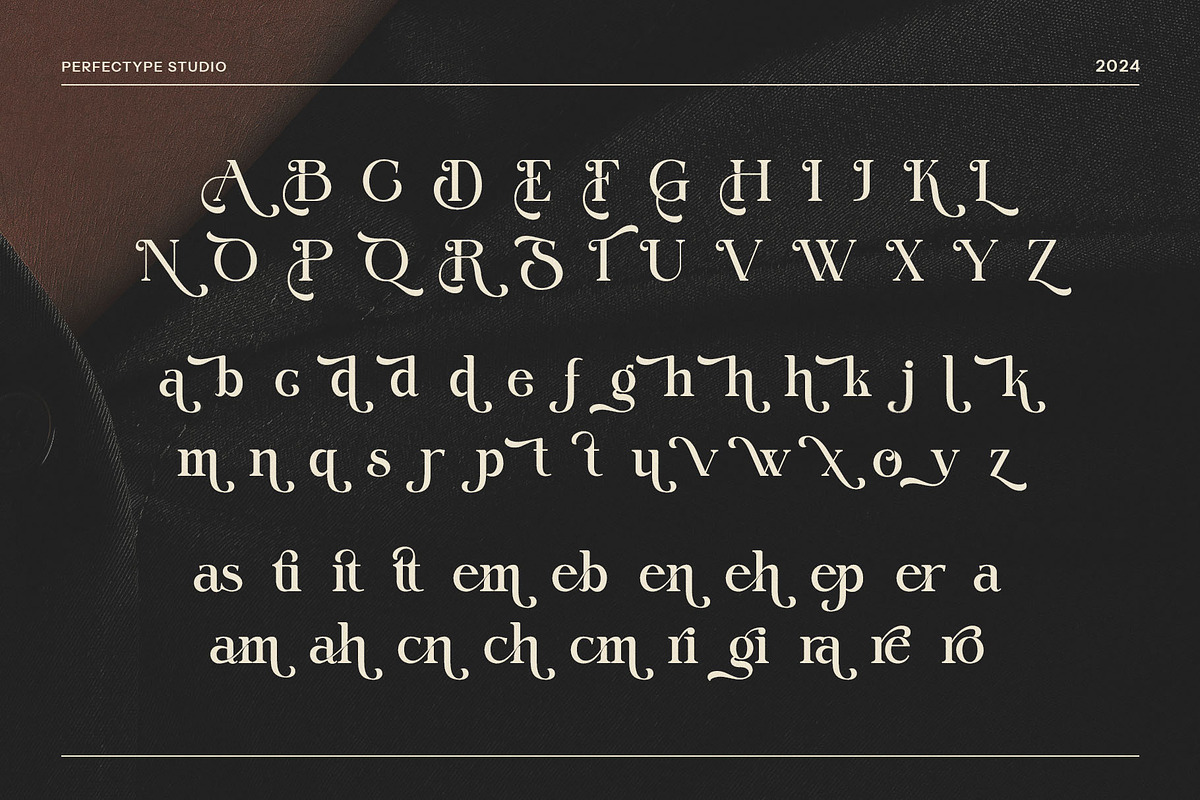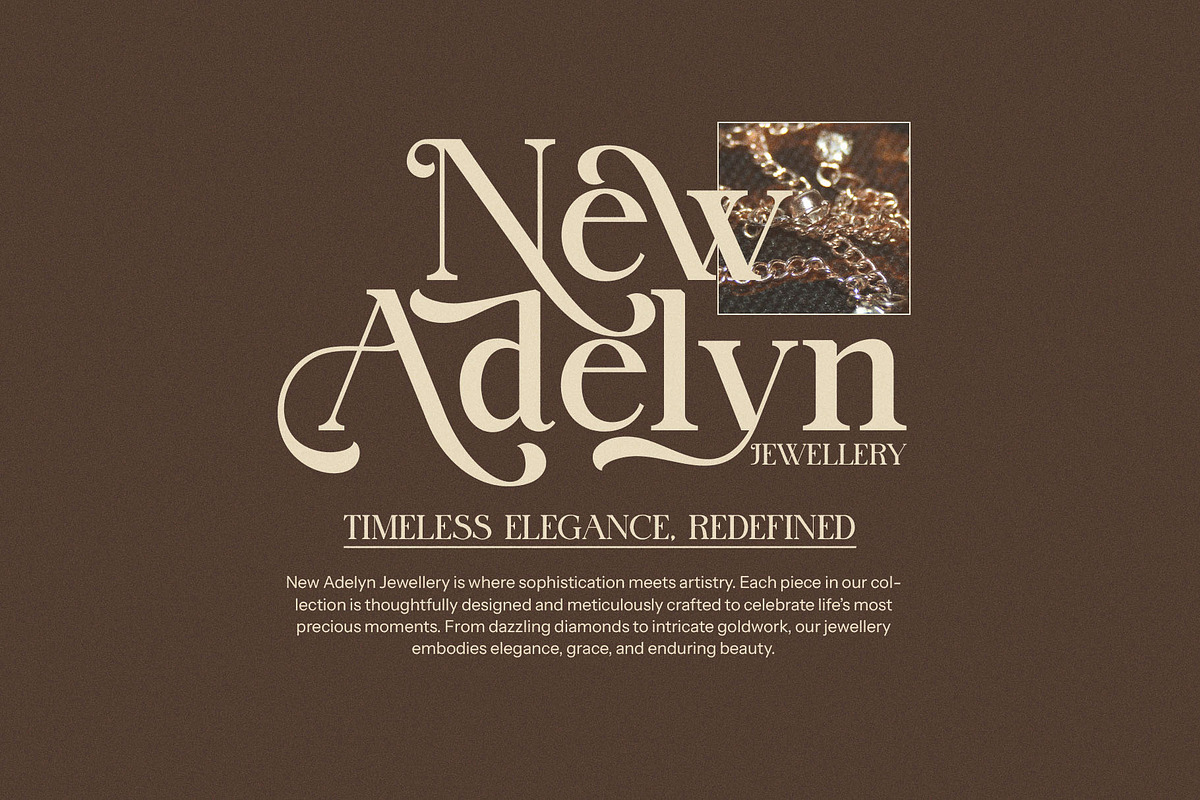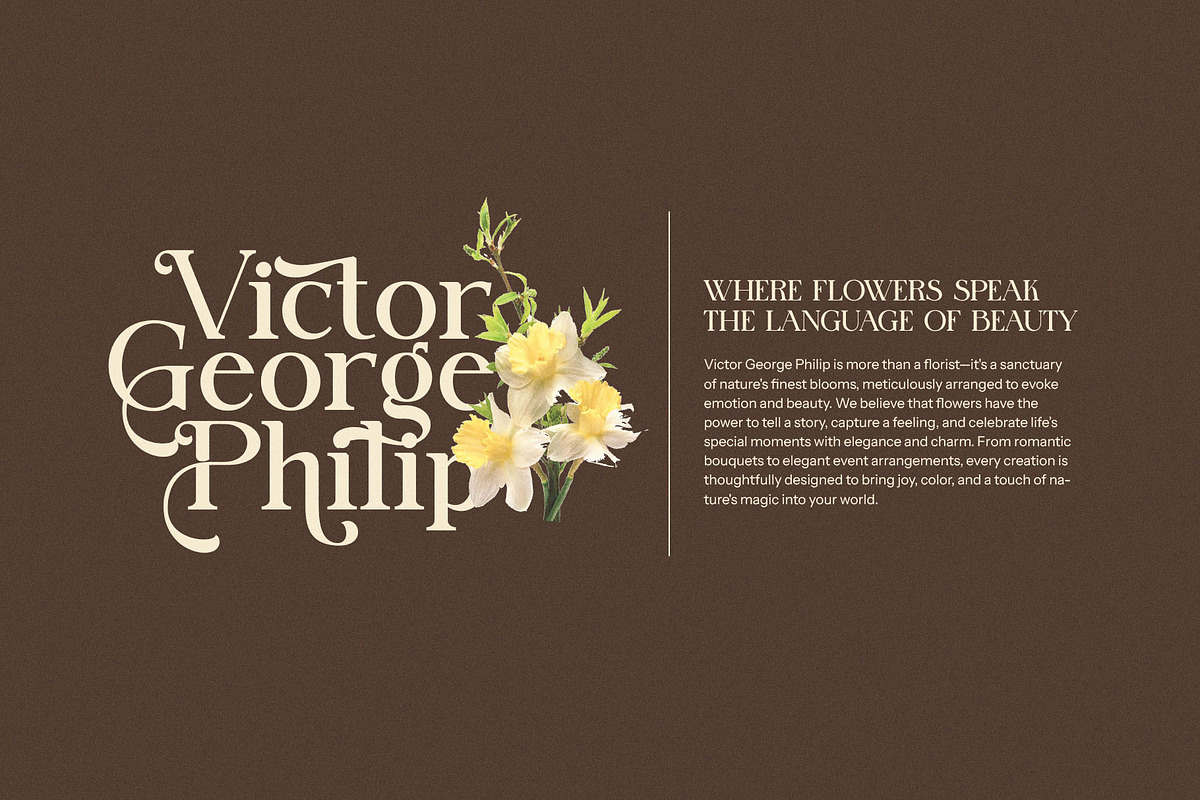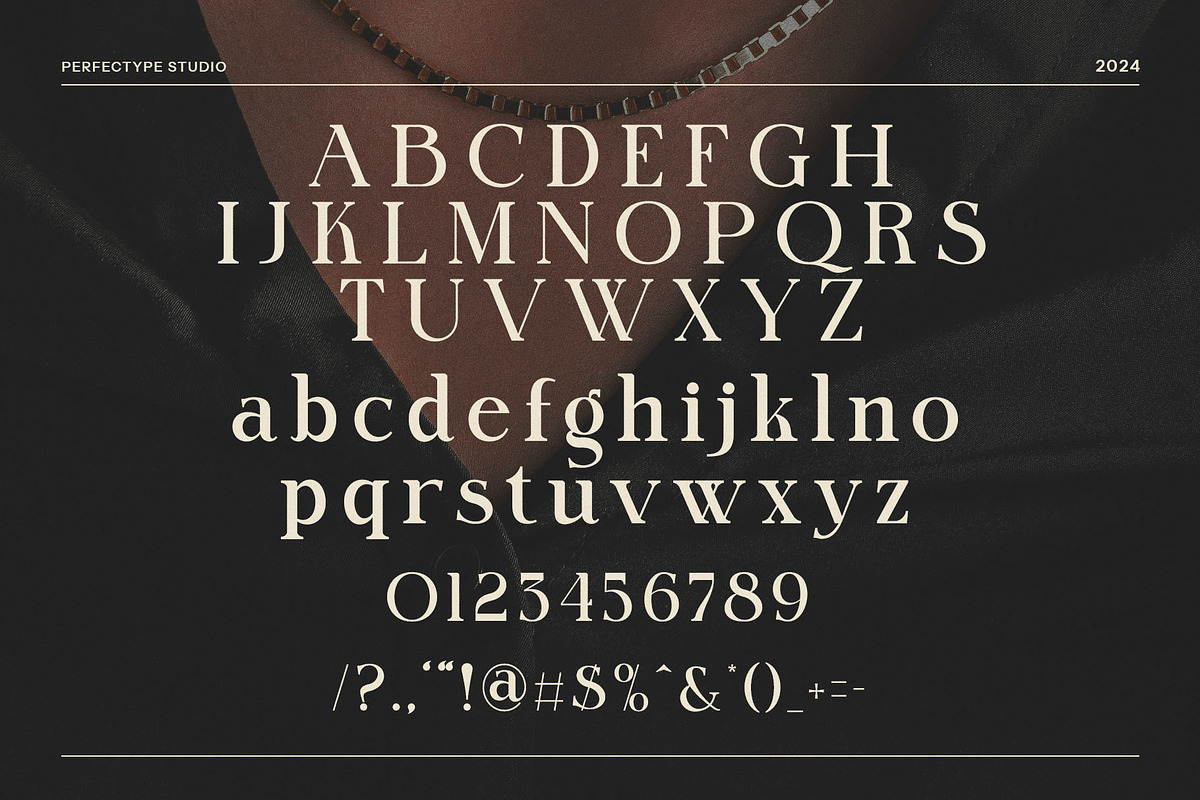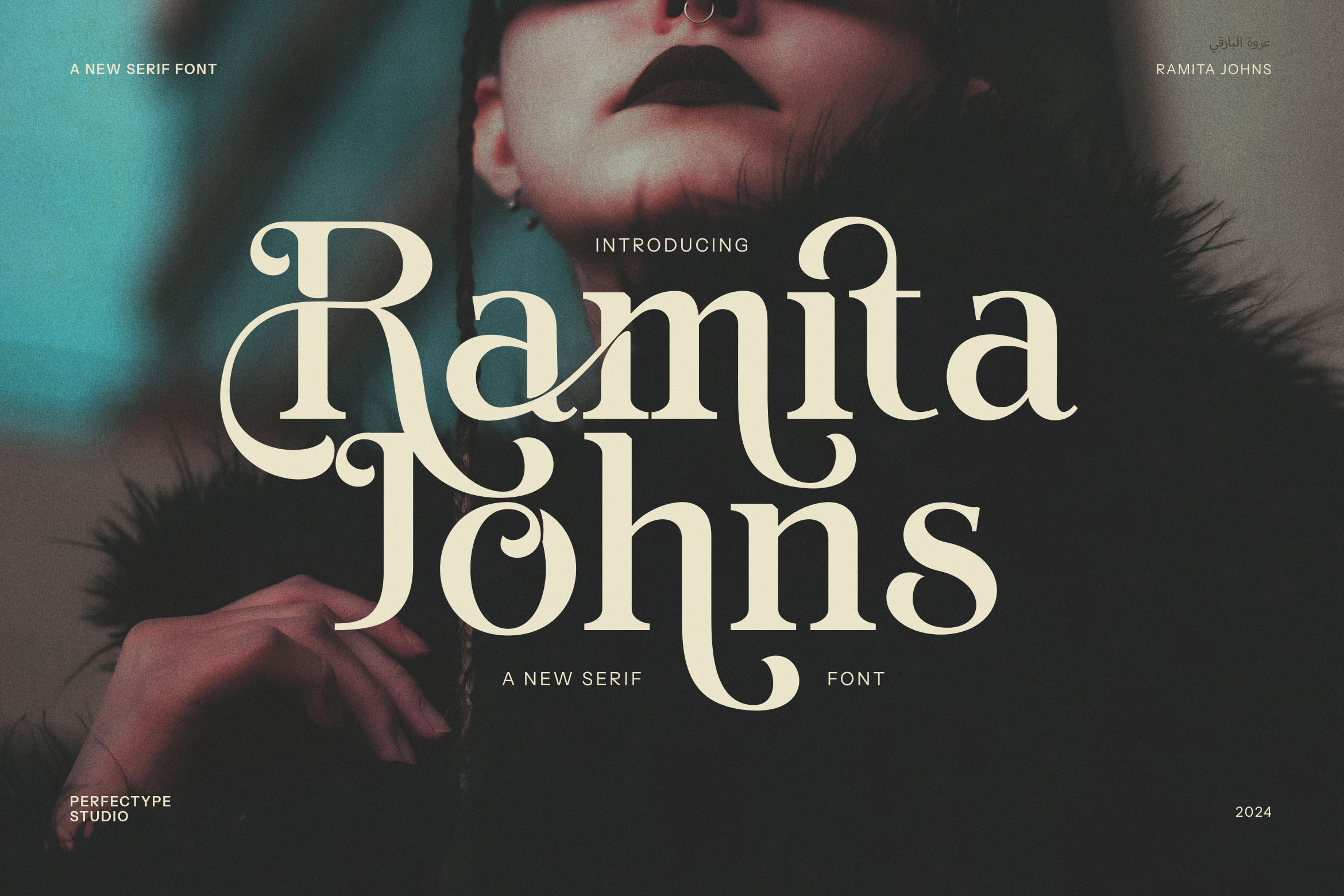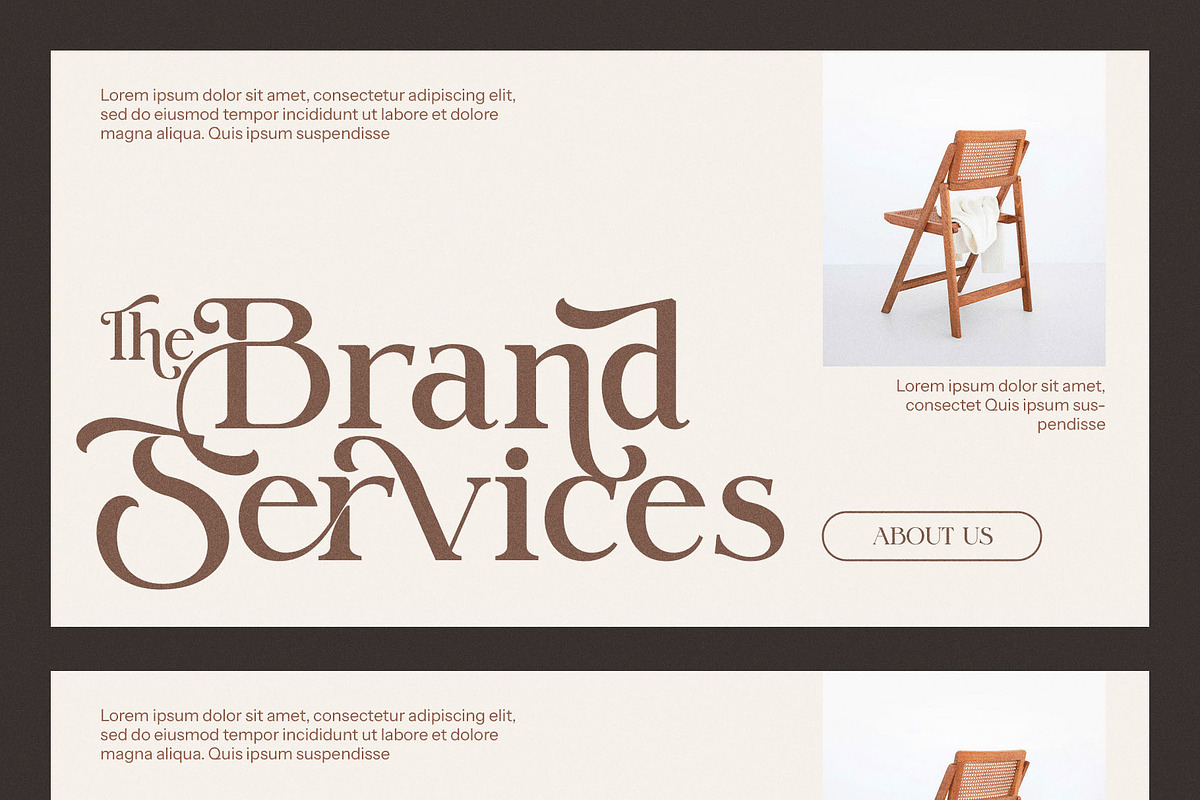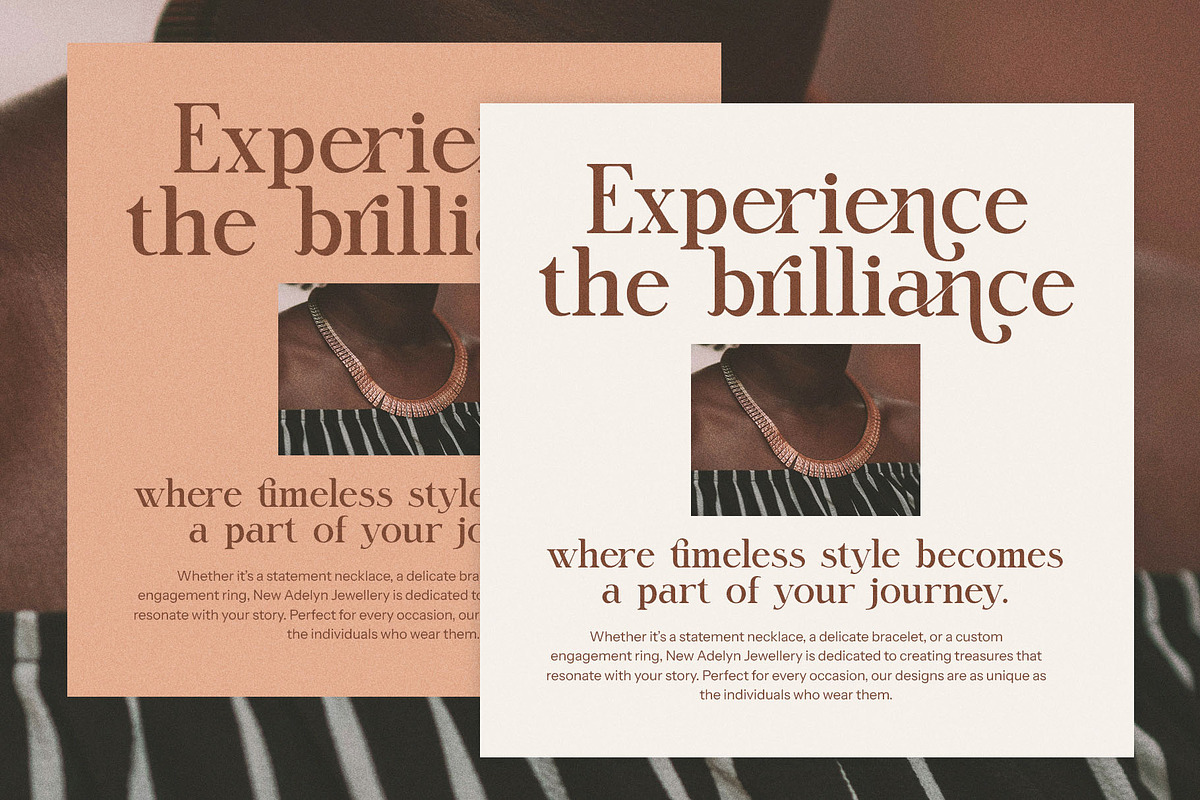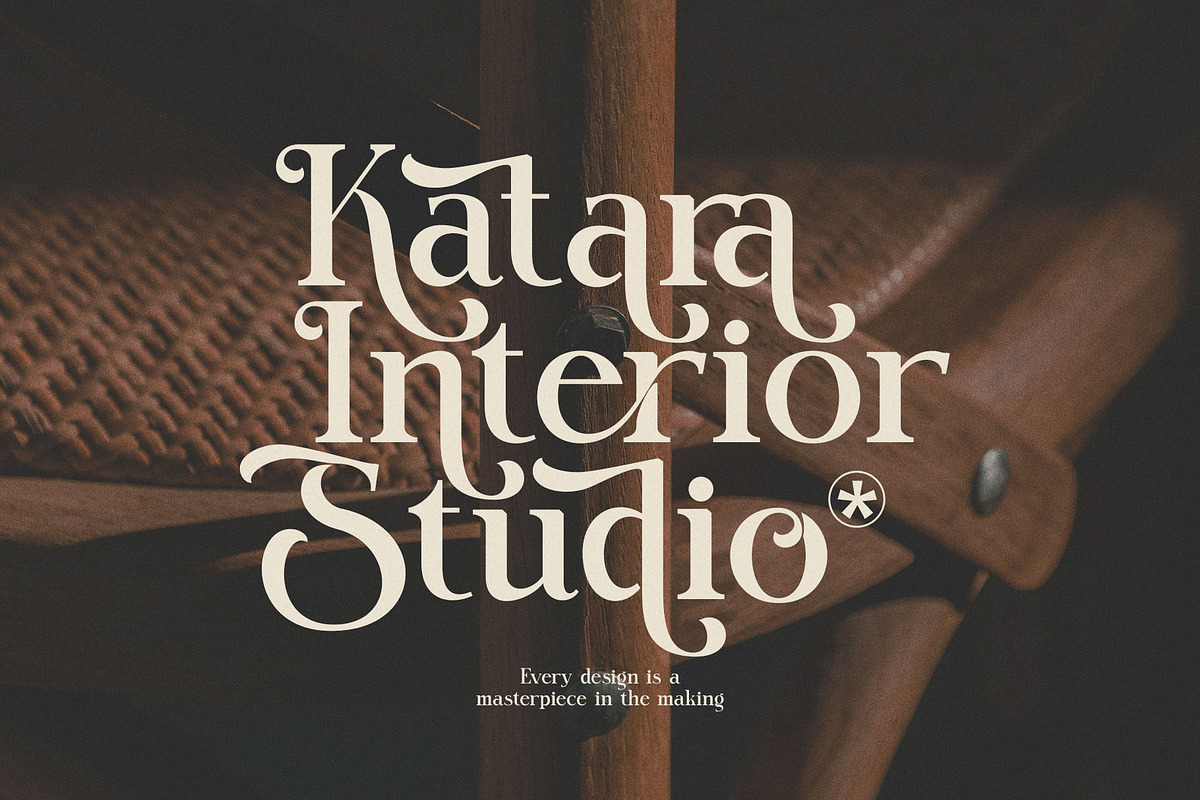
Ramita Johns Stylish Serif Font
Ramita Johns Stylish Serif Font is a contemporary and elegant serif typeface that seamlessly blends modern design sensibilities with timeless sophistication. With its beautifully crafted letterforms and distinctive serifs, this font adds a touch of class and personality to any project. Ramita Johns is designed to be both stylish and versatile, making it the perfect choice for projects that require a sophisticated, yet approachable aesthetic.
This font shines in branding and logo design, offering a polished and professional look for a wide range of industries. Whether you’re working on a high-end boutique logo, a premium product label, or an elegant restaurant menu, Ramita Johns Stylish Serif brings an elevated, refined vibe that makes a lasting impression. Its balanced design makes it equally effective for both print and digital applications, including websites, magazines, product packaging, and advertisements.
The modern serif style of Ramita Johns is ideal for editorial layouts, brochures, and promotional materials, offering a perfect blend of style and readability. Its versatility allows it to stand out in both large headings and smaller body text, ensuring that your message is clear and impactful. This font is particularly well-suited for luxury brands, fashion, lifestyle, and food-related projects, where sophistication and elegance are key.
Whether you are designing for a chic boutique or creating a visually striking ad campaign, Ramita Johns Stylish Serif Font offers the ideal balance of contemporary elegance and timeless appeal, making it a must-have for any creative professional.